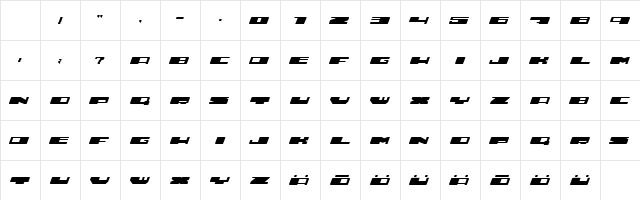
Complete Hustler Bold glyph index. Displaying only characters natively supported by Hustler Bold font.
Hustler is a composed and adaptable typeface that performs quietly and consistently across a wide range of design contexts. Its bold stroke weight gives it real presence on the page.
Who designed the Hustler Bold font?